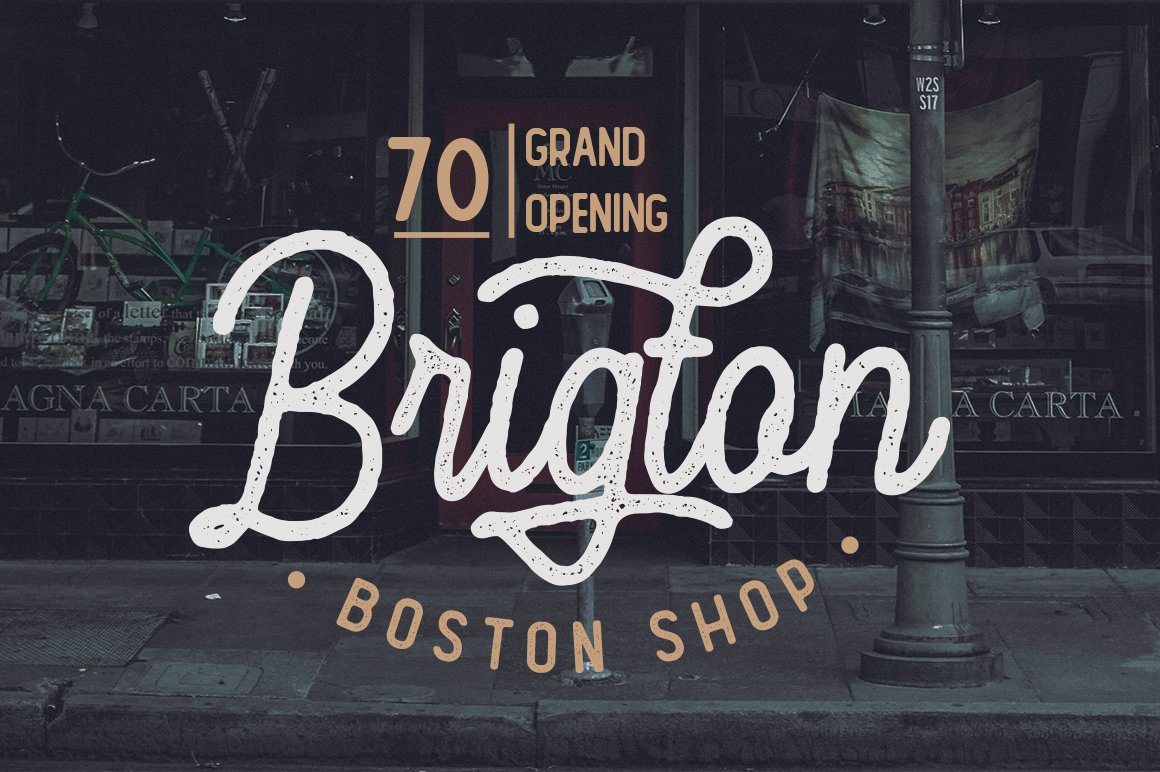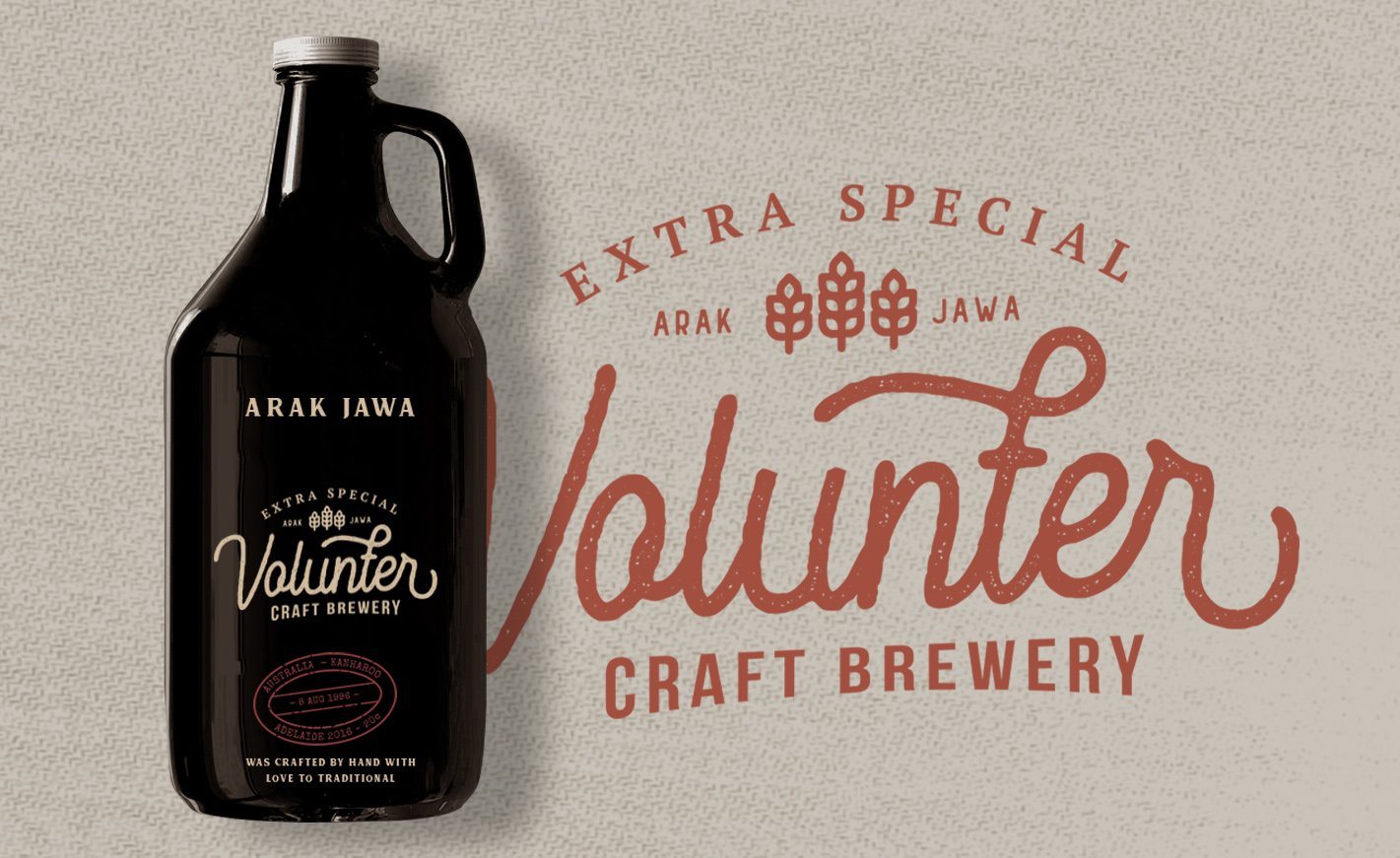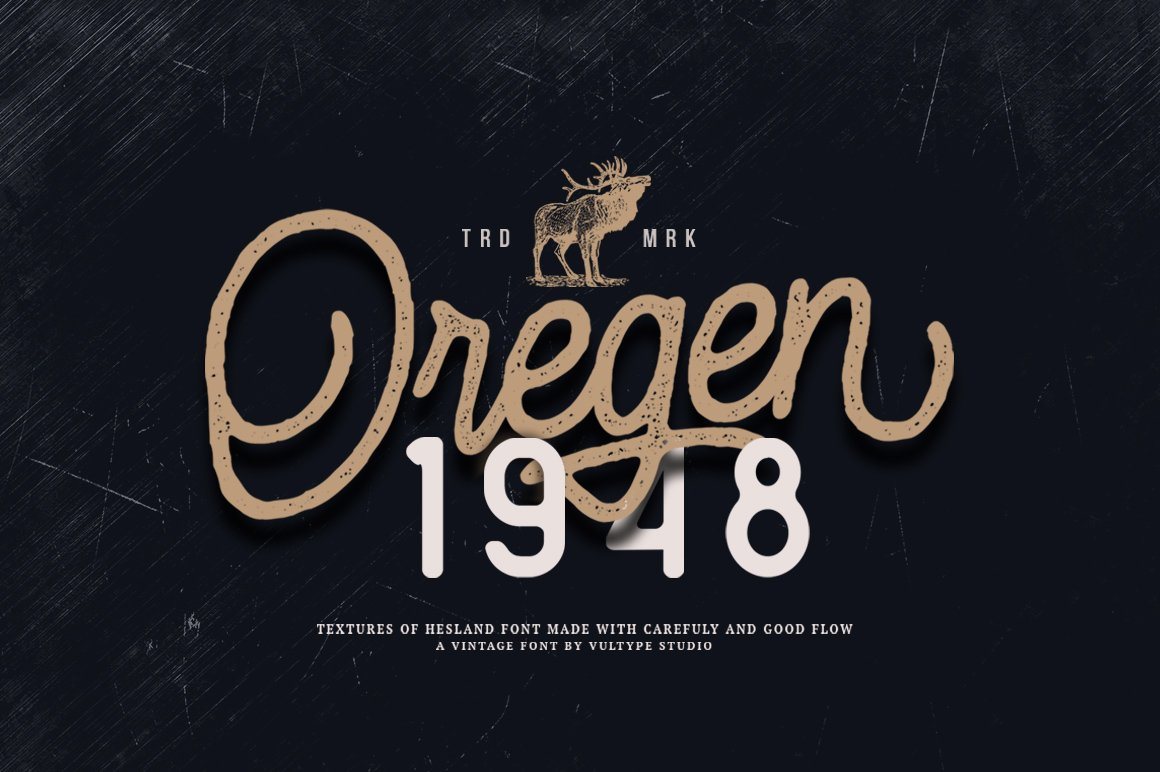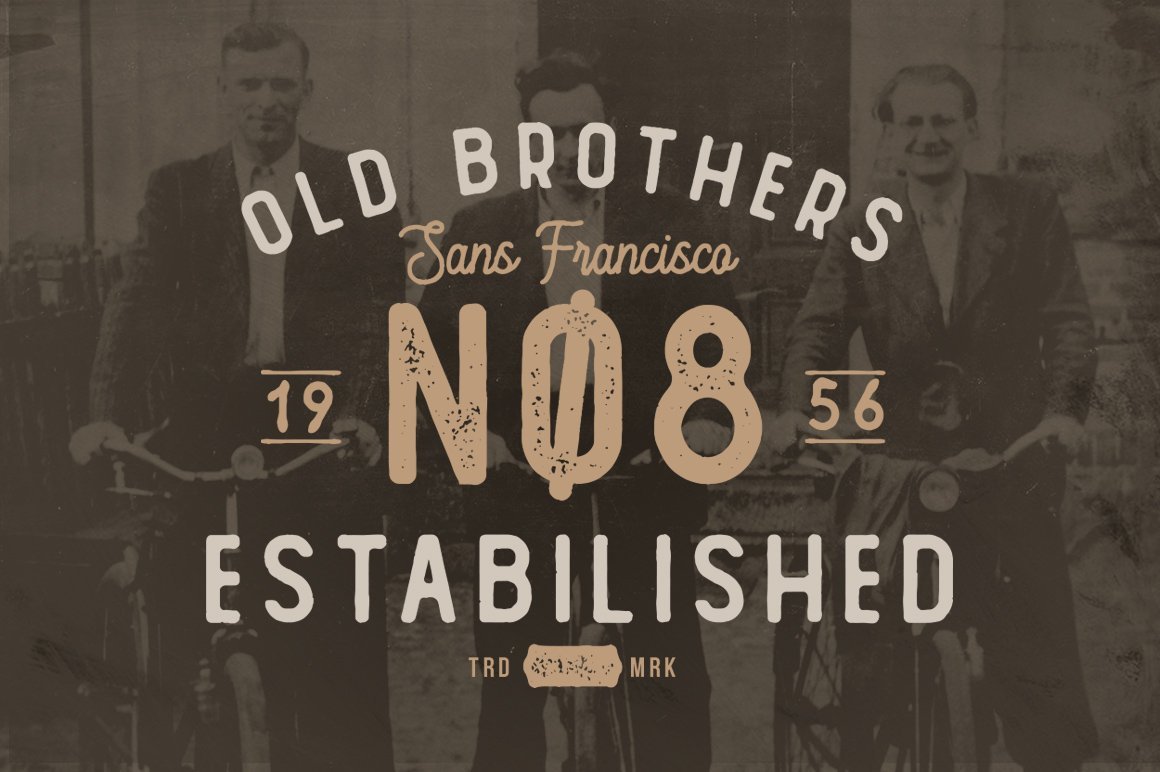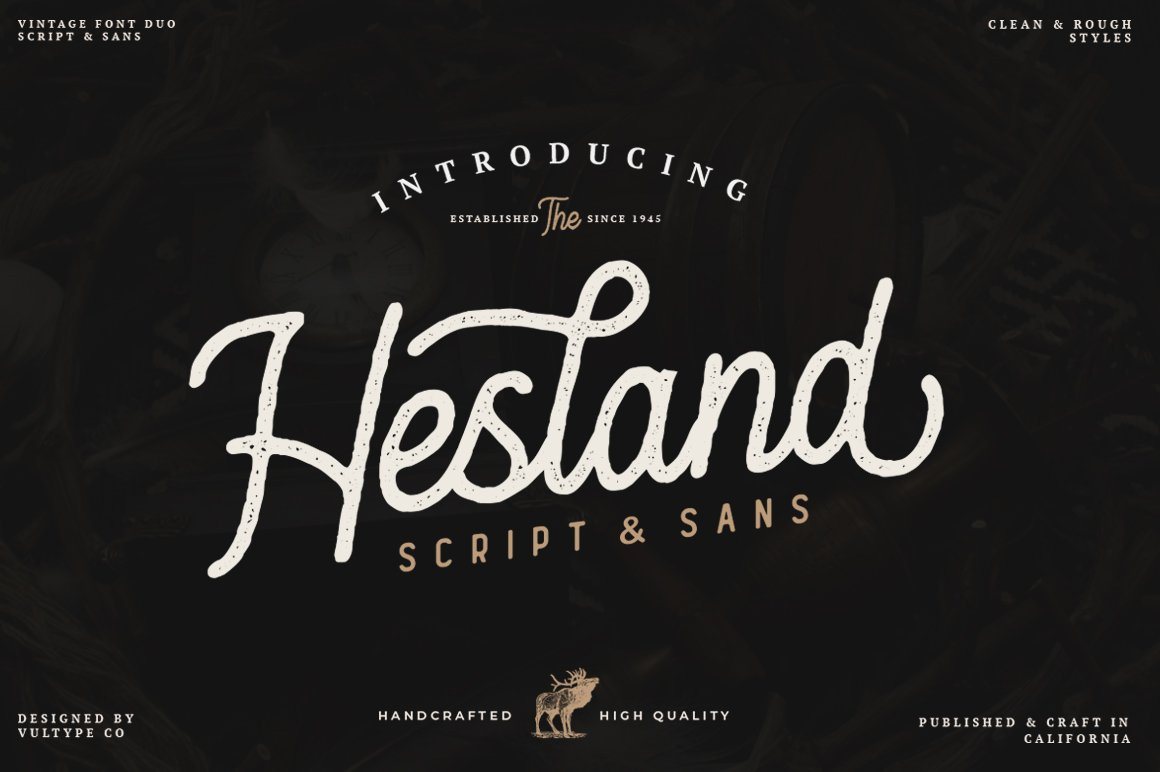
Hesland – Vintage Script Font
About Hesland – Vintage Script Font
inspired by classic posters, Hesland is a simple, yet impactful handwritten font that celebrates all things vintage. Get inspired this one-of-a-kind typeface! You WIll Get : Zip file containing: either a OTF and TTF files Font Features : Web font file (.WOFF) Uppercase + Lowercase Letters Numbers + Punctuation Ligature Feature OpenType features Multilingual support Compatible with  Adobe Illustrator, Adobe Photoshop, Adobe Indesign, Word, Corel draw, inkscape Silhouette Studio, Cricut Design Space, Scan N Cut, and other cutting and design programs Any questions? feel free to send us a message. Have a great day !